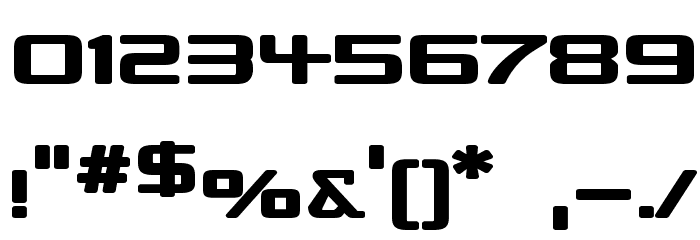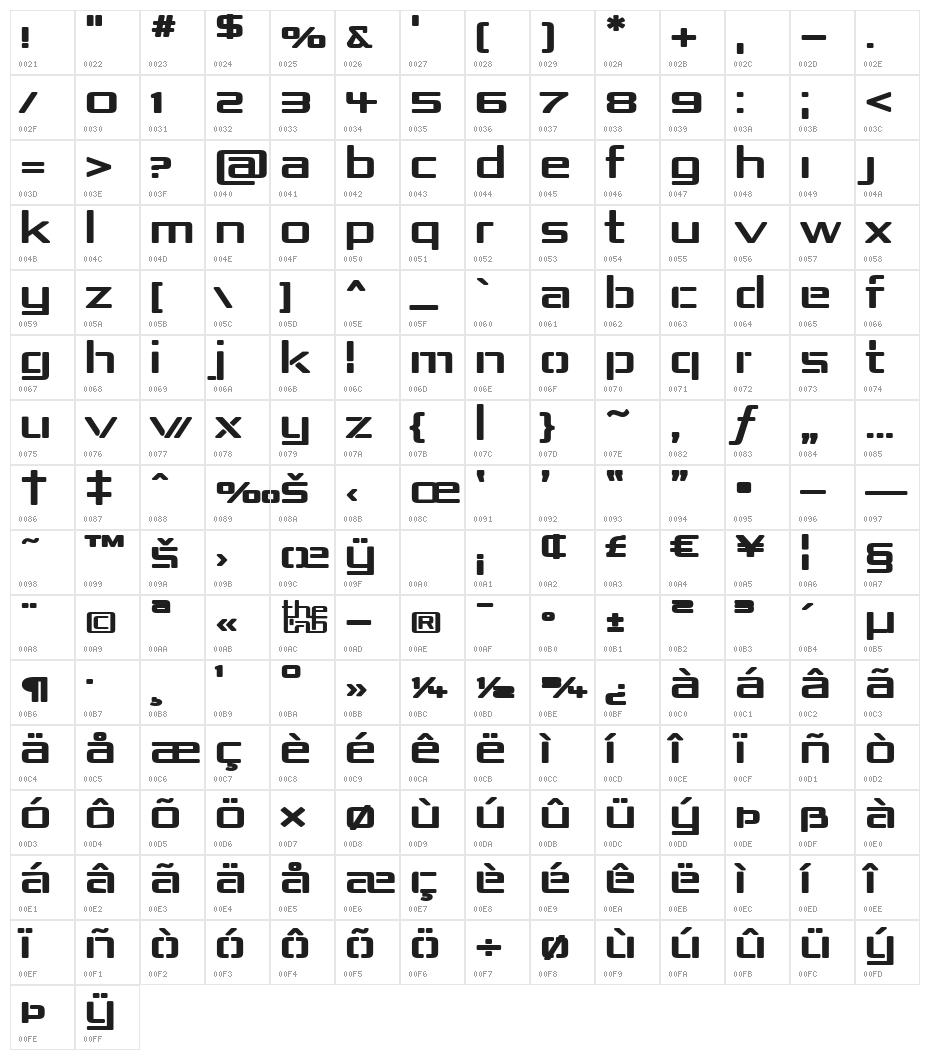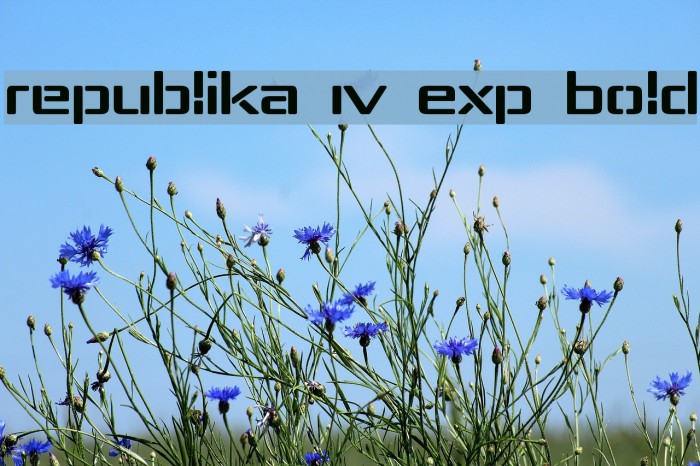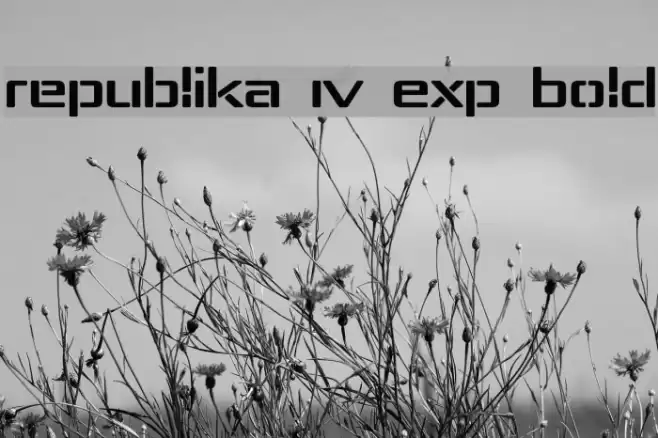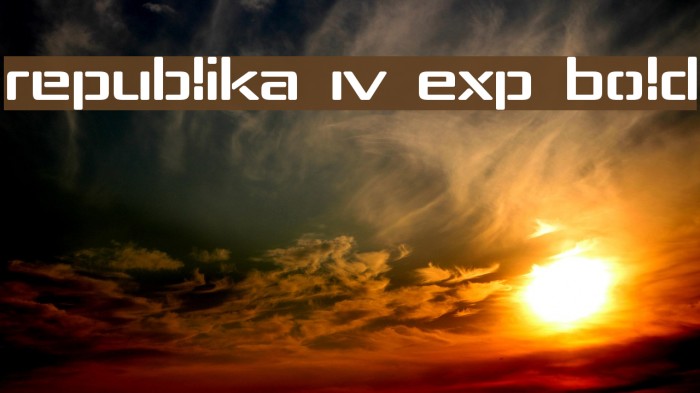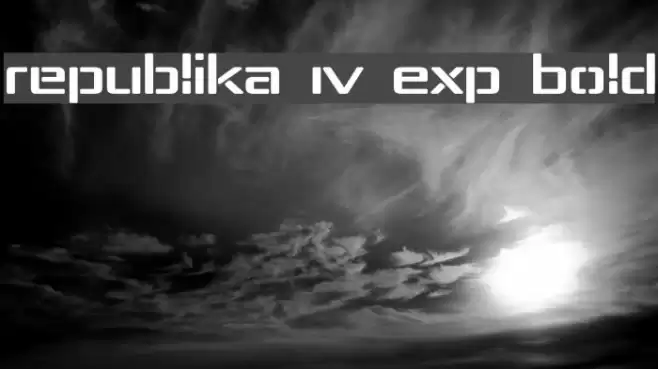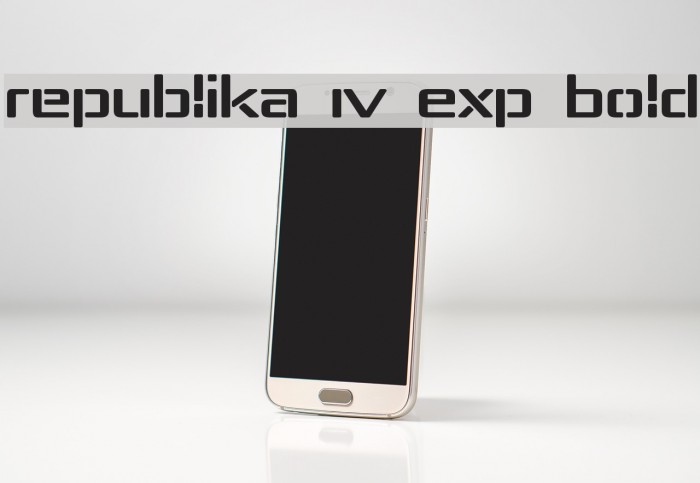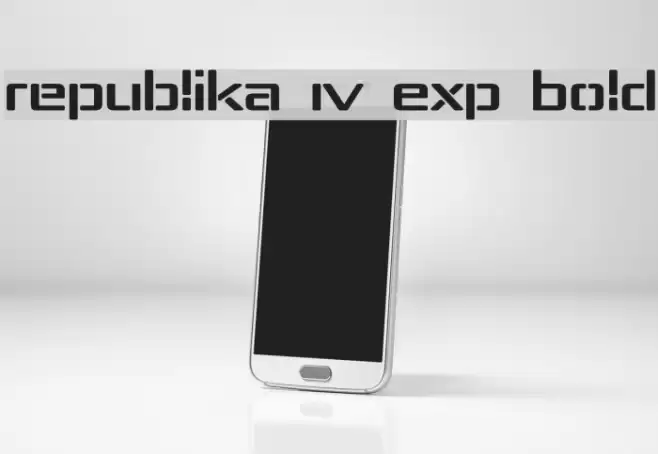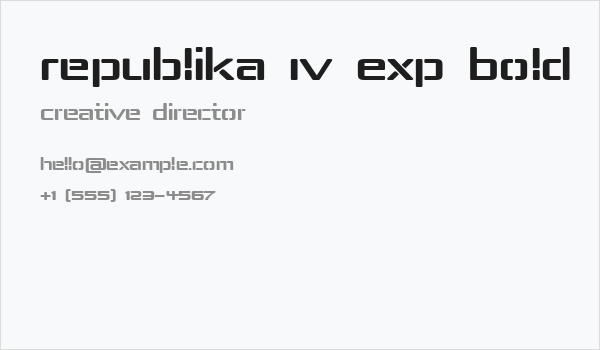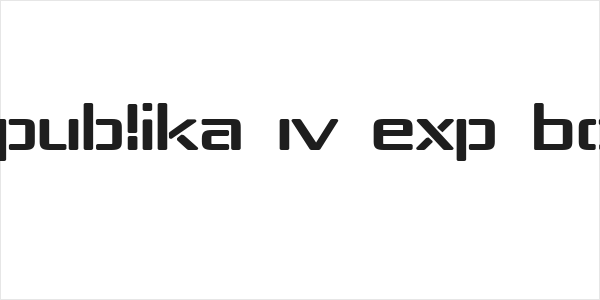
Republika IV Exp Bold Font
Republika IV Exp Bold Description
This font features a bold and modern design with a geometric and slightly futuristic aesthetic. The characters are uniformly thick, giving a strong and impactful appearance. The rounded corners soften the overall look, making it approachable yet assertive. The uppercase and lowercase letters maintain a consistent style, with a uniform height that enhances readability. The numerals are clear and distinct, matching the boldness of the alphabetic characters. Special characters are designed with the same attention to detail, ensuring they integrate seamlessly with the rest of the typeface.